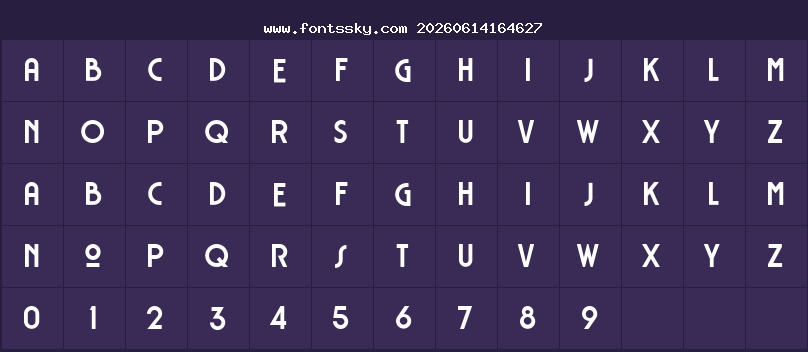
Rousseau Deco Preview
• Font Name: Rousseau Deco
• Full Font Name: Rousseau Deco
• Designer: Mariano Diez
• Manufacturer: Mariano Diez
About Rousseau Deco.ttf
Rousseau Deco.ttf is a modern, elegant sans-serif font designed for ultimate readability and visual harmony. Perfect for branding, headlines, web design, and print materials.